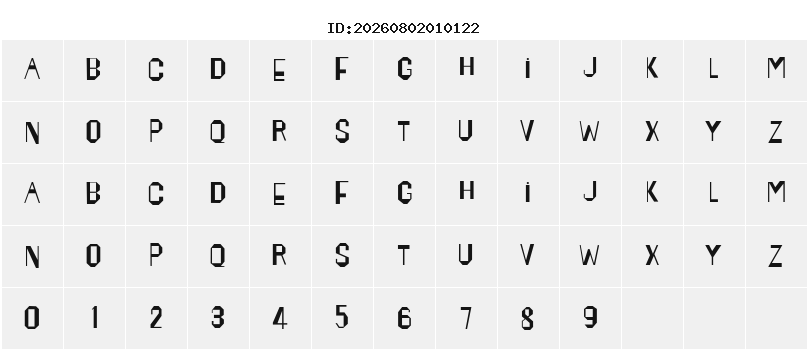
Maynard Preview
• Font Name: Maynard
• Full Font Name: Maynard
About Maynard.ttf
Maynard.ttf is a modern, elegant sans-serif font designed for ultimate readability and visual harmony. Perfect for branding, headlines, web design, and print materials.